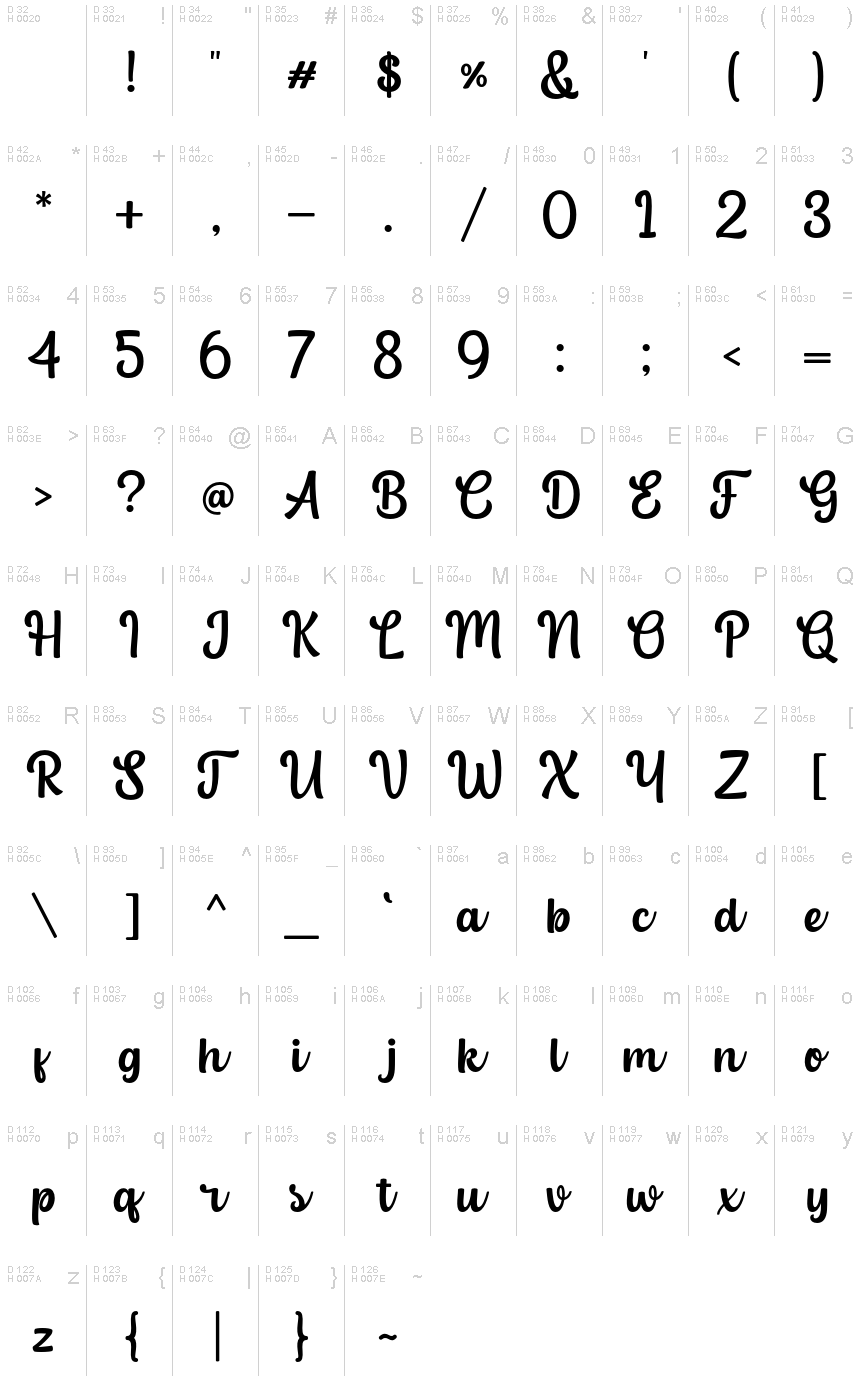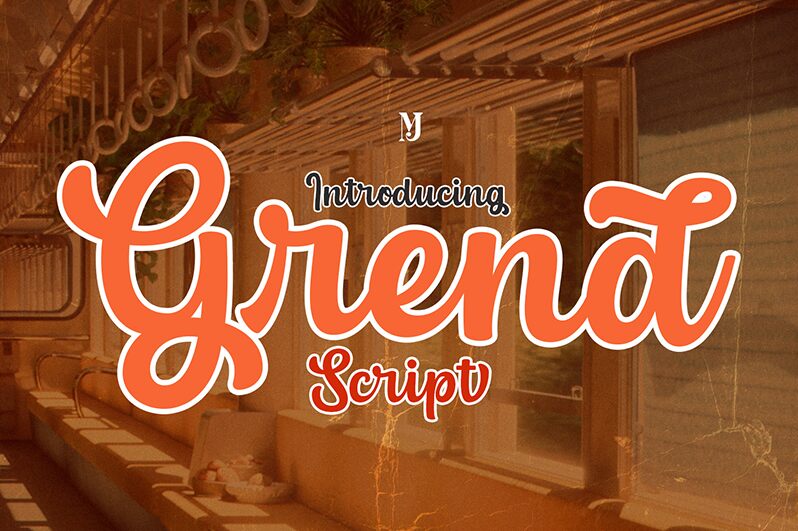
Grend
Grend font by MJType captures the essence of elegant authenticity with its handwritten style. This free font exudes a dynamic flow, characterized by graceful curves and a lively presence that feels both personal and sophisticated. Its visually appealing design is perfect for projects that require a touch of warmth and individuality.
Great for branding, invitations, and social media graphics, Grend font provides versatility while maintaining an inviting charm. Designers can download this free font to infuse creativity into various contexts, making it an excellent choice for those seeking an expressive typographic solution. Optimize your projects with the unique style of Grend font.